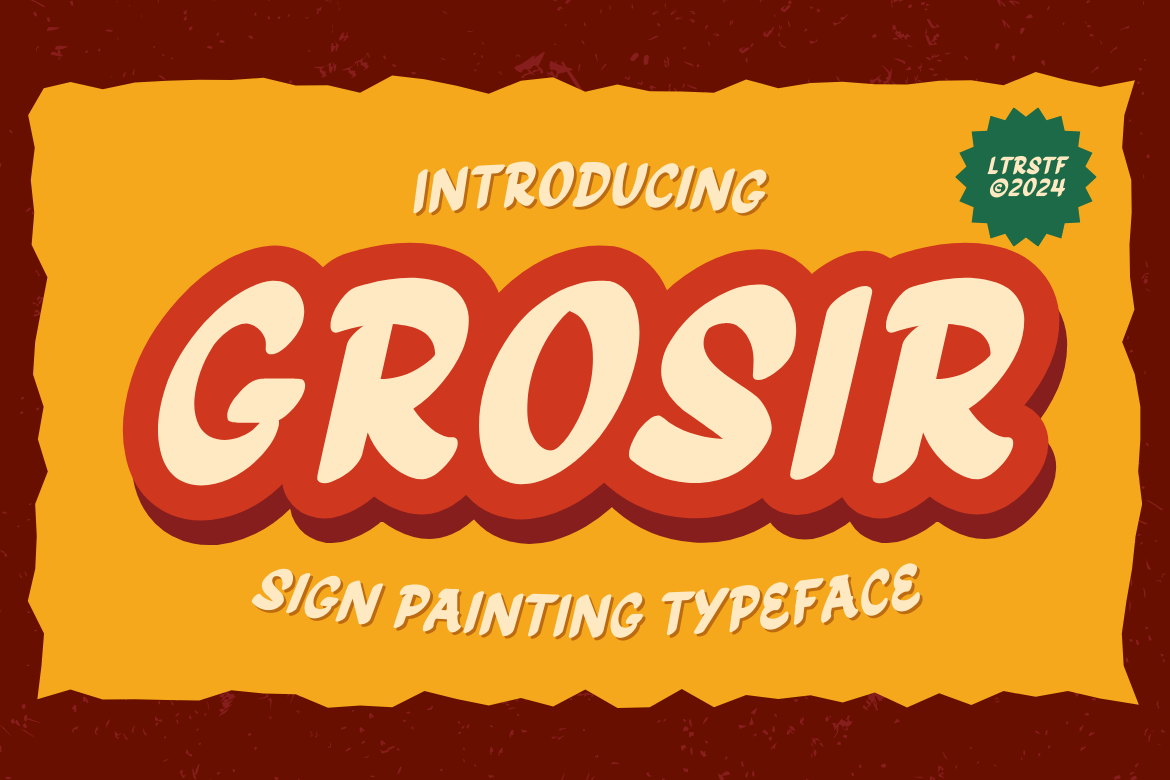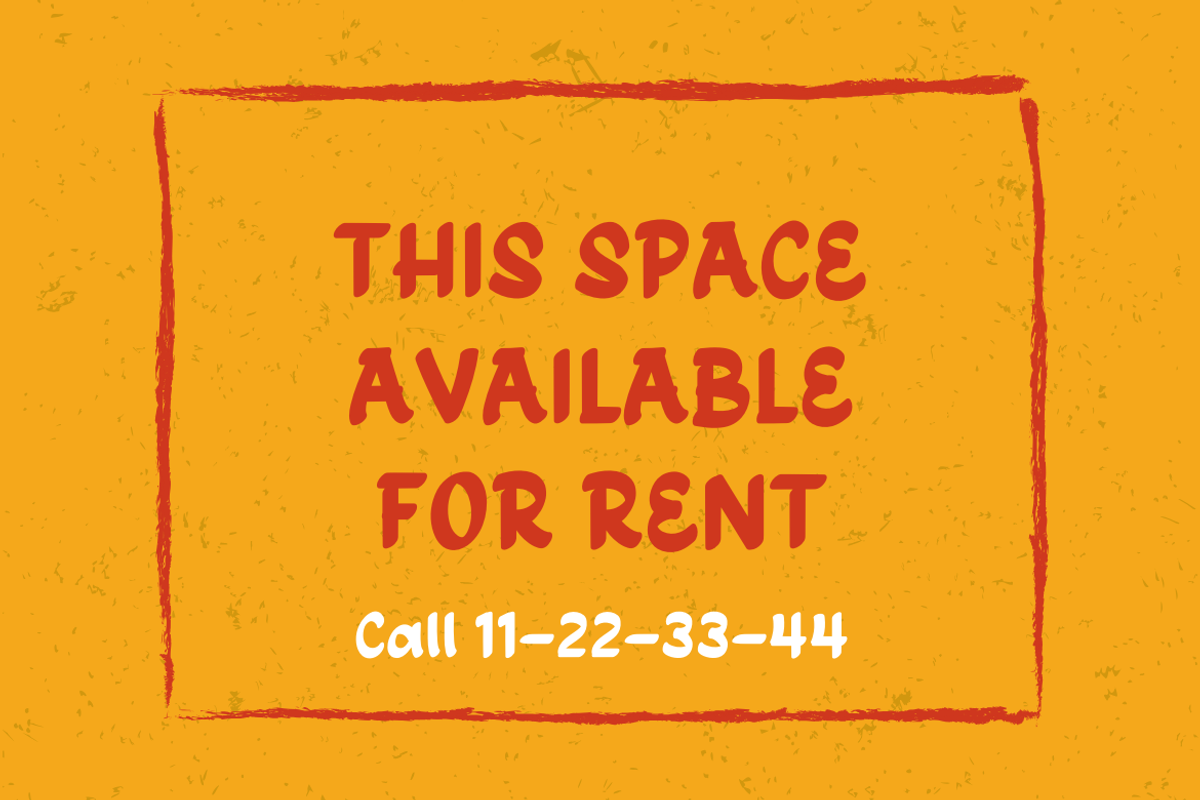
Grosir | Grocery Font
Introducing our new font collection "Grosir Font". Inspired from vintage manually crafted sign paint from grocery store. Suitable for any creative project such as social media promo, each project easier and more playful.
- Available style : Regular & Oblique
- Numeral and punctuation